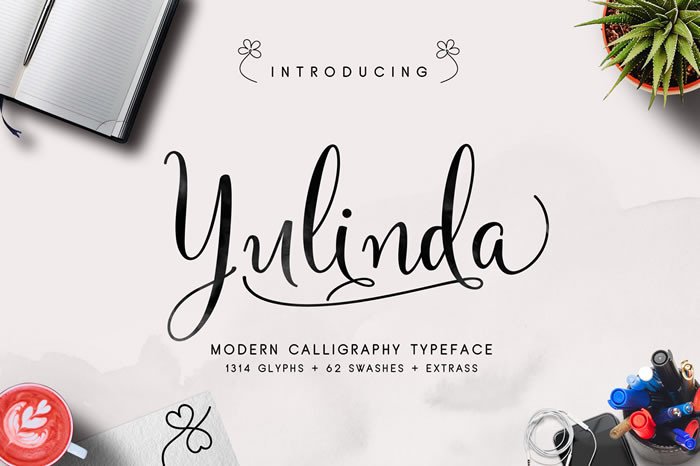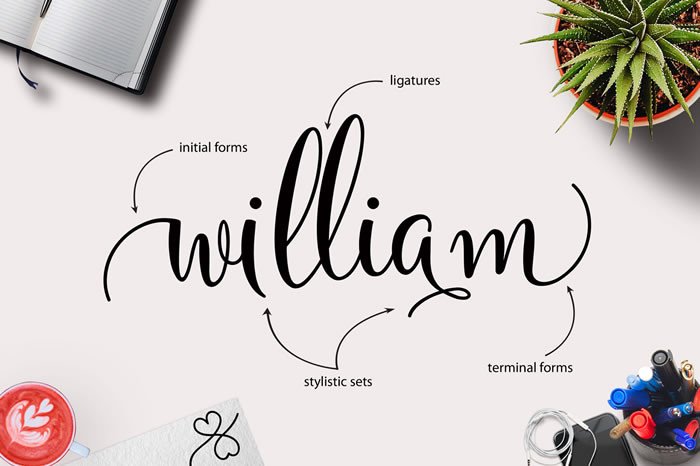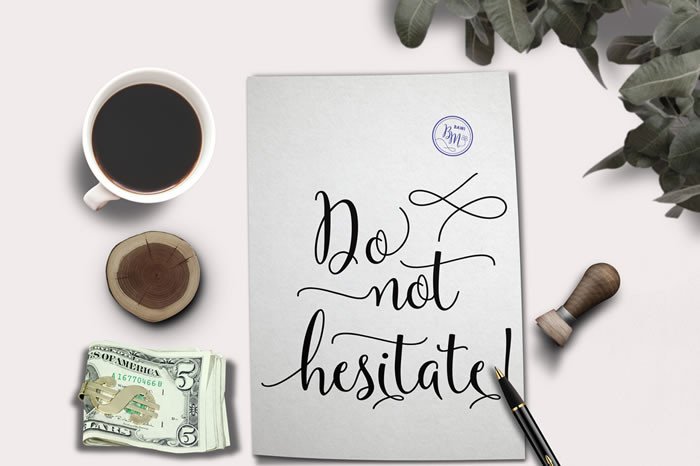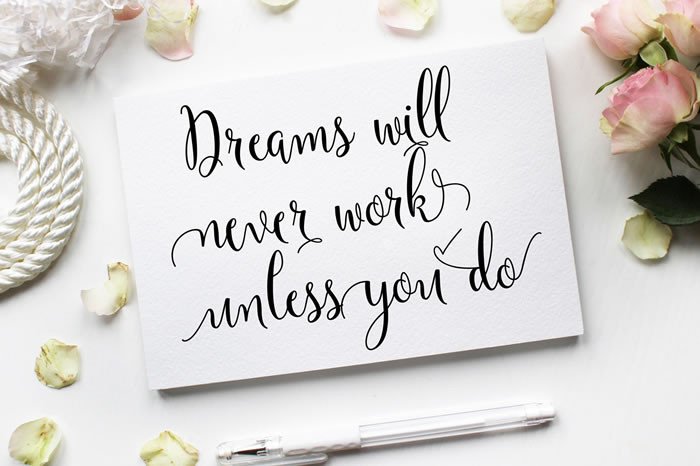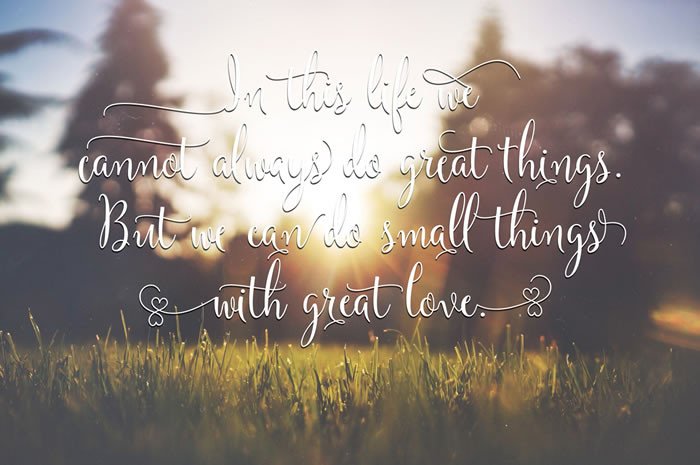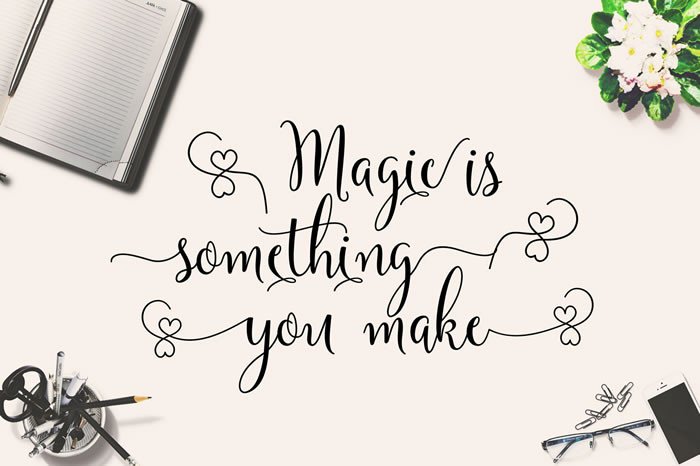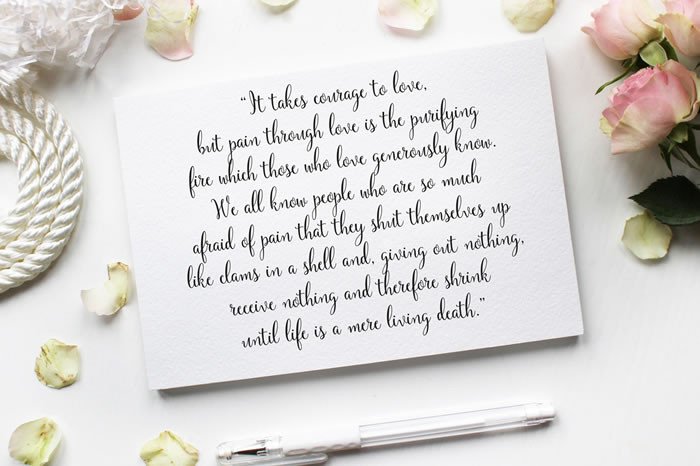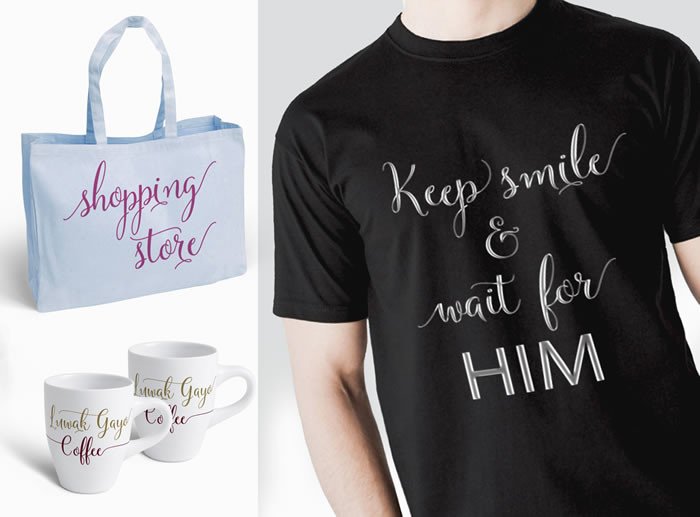
Yulinda Font
About Yulinda Font
Yulinda script is a new, fresh & modern calligraphy typeface. It has a dancing baseline and some beautiful decorative characters. It can be used for various purposes such as headings, logos, invitations, t-shirt designs, greeting cards, posters, labels, book covers, brochures, and much more.